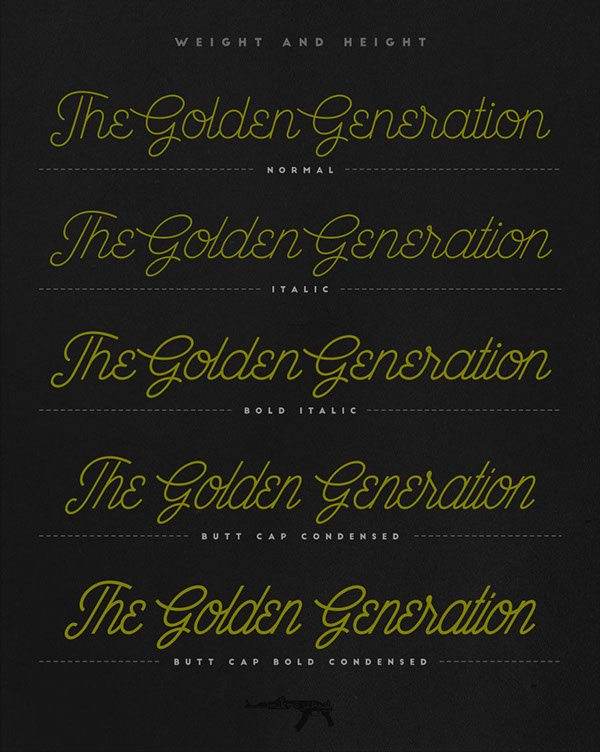
Free Font Of The Day The Wahhabi Script
Free Font Of The Day #65 – The Wahhabi Script
The Wahhabi Script
Today we share you Wahhabi Script Font. This font is free for personal use and created by mikrojihad . This font is 2pt Round Cap Freehand Lettered – Mousemade Script Font.
The Wahhabi Script